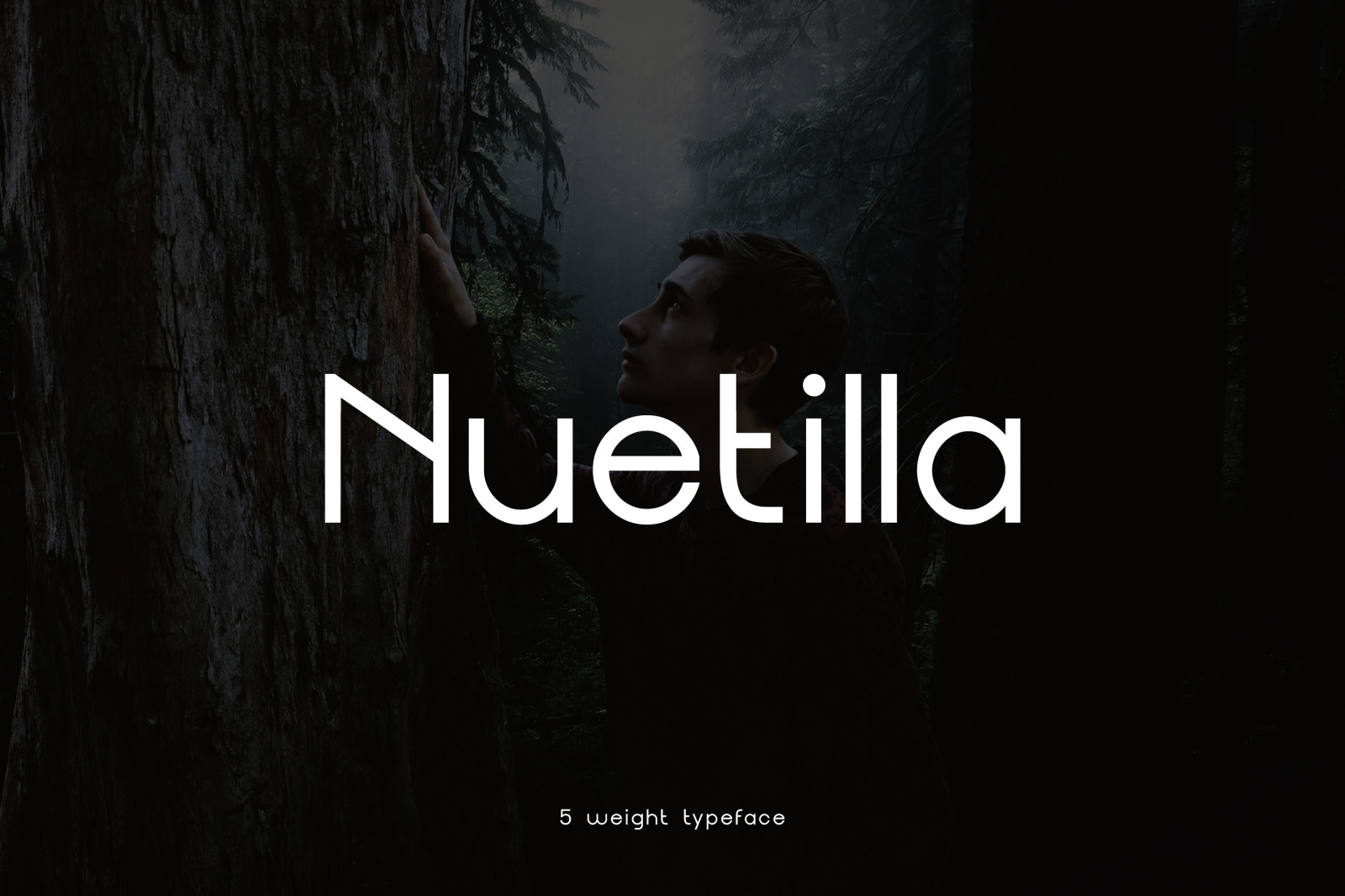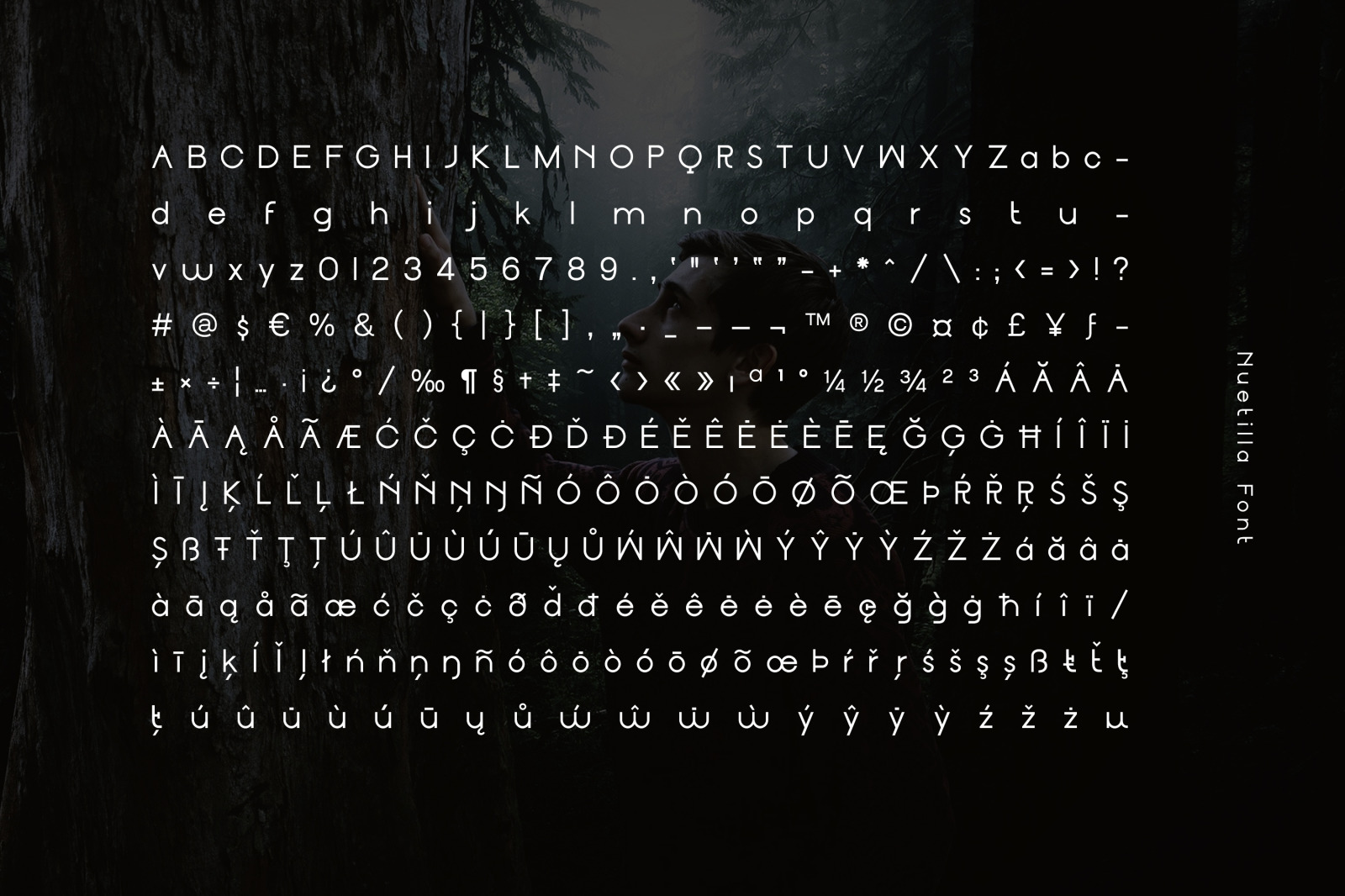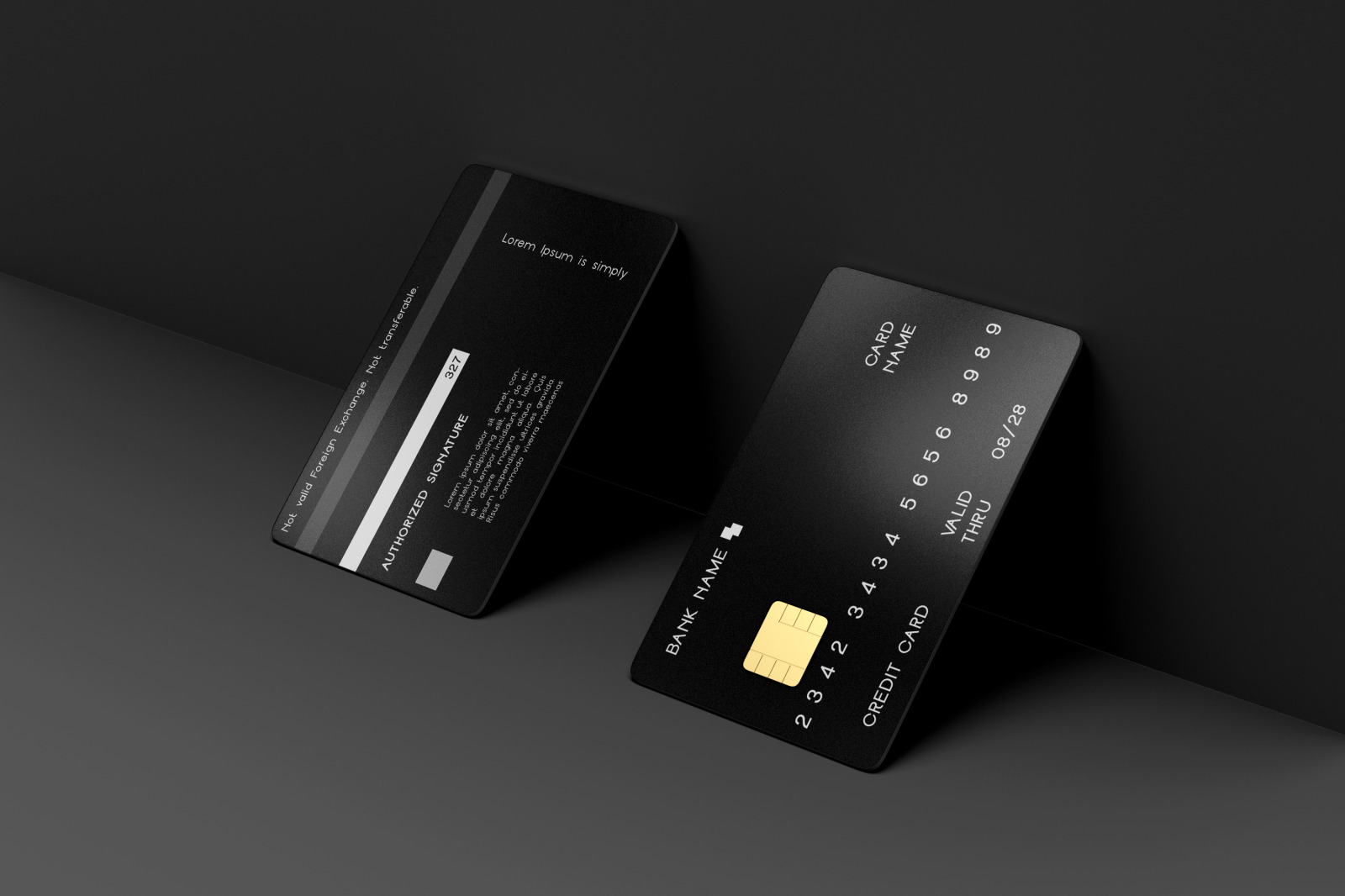
Nuetilla Font
Nuetilla is a unique and modern display typeface perfect for headlines, big texts, branding, logotypes & display usage. This font can be the perfect choice for creating outstanding logos, unique monograms, promotional content, and marketing graphics that can bring uniqueness and freshness to the best level.
This is a variant font so, You can easily use the font feature in many areas. You can create your text with normal characters and highlight bold characters and titles. In Nuetilla Font Some letters will keep your design to make gorgeous.
This font has 200 above glyphs and extensive Latin script support and upper and lowercase sans serif characters. It carries a powerful, unique, and social character line with a premium finish, giving a new impression. Add it confidently to your favourite creations and let yourself be amazed by the outcome generated.
Variant Includes :
Light, Regular, Medium, Semi bold, Bold
Uppercase
lowercase
punctuations
numbers